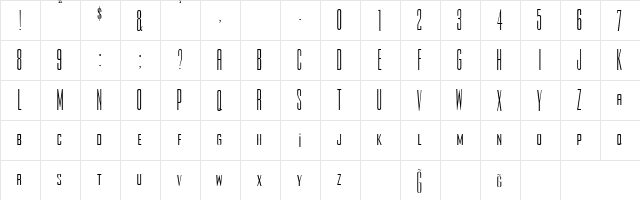
TrSah Rothman Plain
Design Context for TrSah Rothman Typeface
TrSah Rothman offers clean, dependable letterforms without strong stylistic allegiance, making it a practical choice for designers who need flexibility.